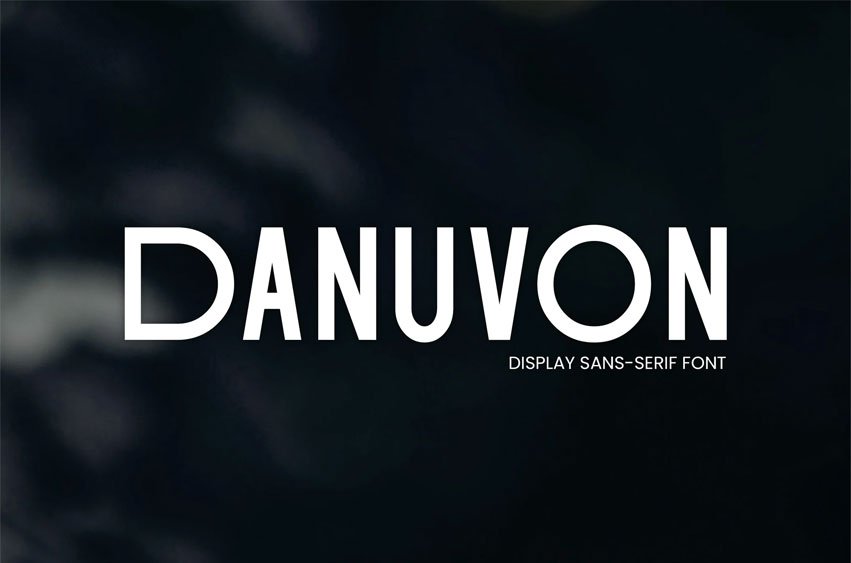
Danuvon Font is a sleek and modern display sans-serif font designed to make a bold statement. With its clean lines and refined structure, this typeface is perfect for eye-catching branding, contemporary editorial designs, and stylish digital content.